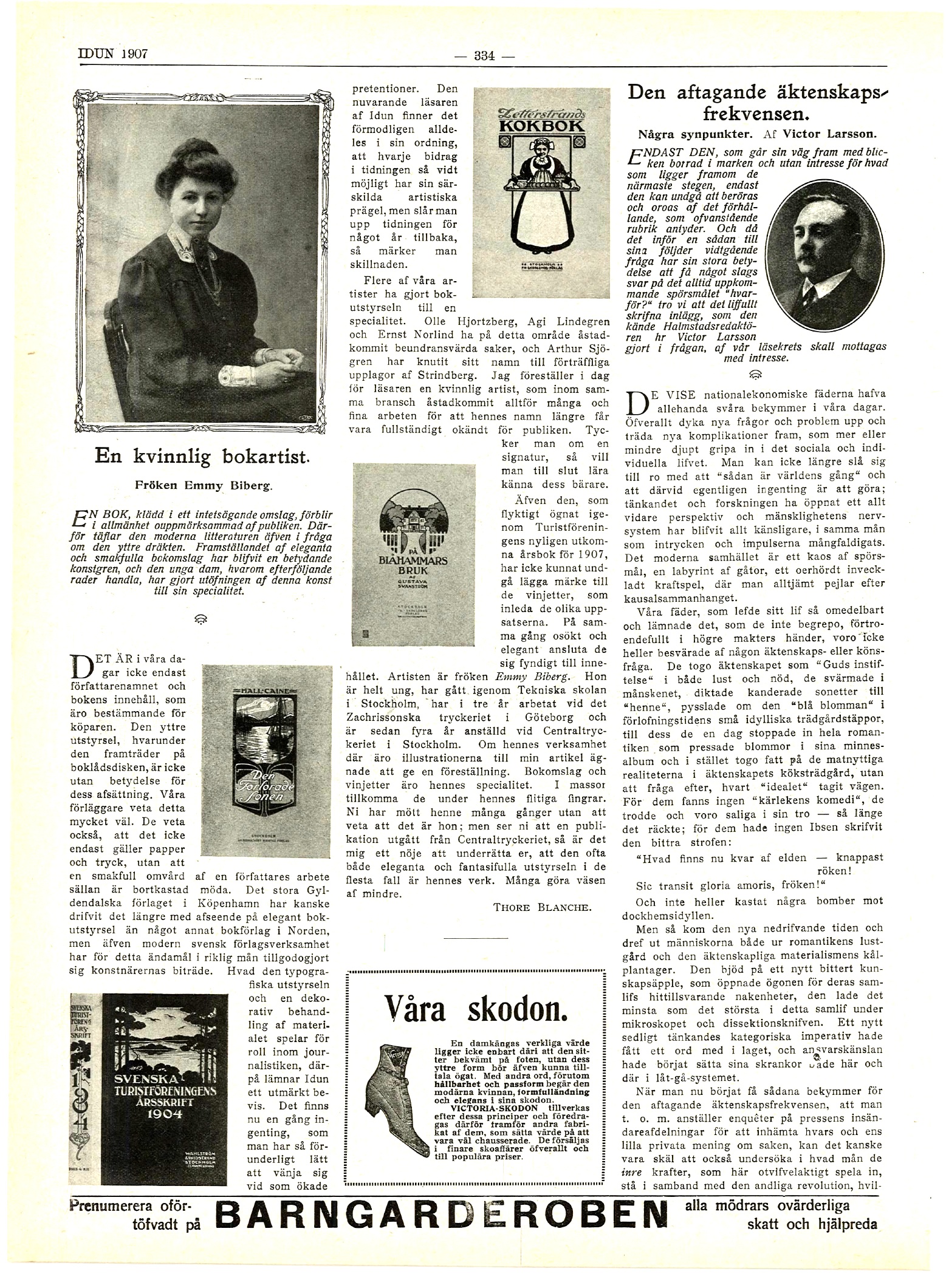
A female book artist
A book clothed in a nondescript cover remains unnoticed by the public in general. That is why modern literature finds itself in a competitive market even in questions of its outer clothing. The production of elegant and tasteful book covers has become a significant branch of art and the young lady who the following lines are about has made the practice of this art her speciality.
These days it's not only the name of the author and the content of the book which are decisive for the purchaser. The outer dress under which it appears on the counter of the bookshop is not without significance for its fate. Our publishers know this very well. They know too, that they not only dealing with paper and print but that attention given to a tasteful presentation of an author's work is seldom wasted. The great Gyldendal publishing house in Copenhagen has perhaps taken this question of the elegant appearance of a book further than any other publishers in Scandinavia, but modern Swedish publishing has also to a rich degree taken advantage of the contribution of the artist. This magazine 'Idun' is an excellent example of the significance within journalism of the typographical packaging and the decorative treatment of the material.
There is nothing which is so extraordinarily easy to get used to as an improved standard of performance. The present reader of Idun probably finds it perfectly natural that every contribution to the newspaper has as far as possible its own special artistic character, but if you look up the newspaper for a few years ago, then you notice the difference.
Several of our artists have made the packaging of the book their speciality. Olle Hjortzberg, Agi Lindegren and Ernst Norlind have achieved admirable results in this area, and the name of Arthur Sjögren is indissolubly linked to the excellent editions of Strindberg. Today I'm presenting to the reader a female artist, who has achieved far too much artistic work in the same genre, for the public to continue in ignorance of her name. When you become familiar with someone's work, sooner or later you want to get to know the person who produced it.
Even someone who has only skimmed through the Swedish Tourist Association's recently published year-book for 1907, could not miss noticing the vignettes which introduce each essay and connect so organically and elegantly to the content. The artist is Miss Emmy Biberg. She's young, has studied at the Technical College in Stockholm, worked for three years at the Zachrisson Printing House in Gothenburg and for the last four years has been on the staff of the Central Printing House in Stockholm. The illustrations to the present article are examples of her work: book covers and vignettes are her speciality, and she produces masses of them with her highly-productive fingers. You have met her many times without knowing that it was she; but if you see that the publication has come from the Central Printers, then I am delighted to inform you that the packaging - often both elegant and imaginative - are for the most part her work. Many make a fuss about much less.